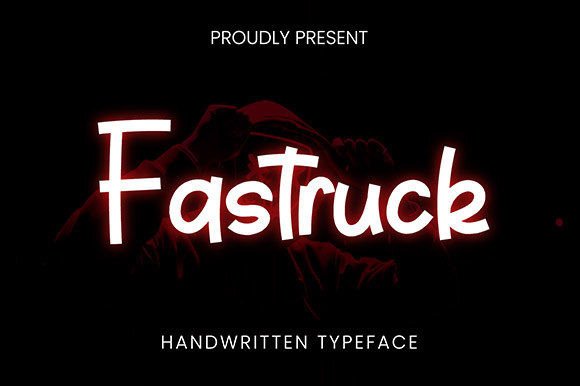
Introducing Fastruck Font - An Enigmatic Script for Captivating Expressions
In a world clamoring for authenticity, your words deserve a voice that echoes your soul's whispers. Discover Fastruck Font, the script font that transforms your digital expressions into captivating works of art. Each letter, meticulously hand-crafted by the visionary artisans at Chatype Studio, dances with a natural flair that's as unique as your own signature.
Experience the versatility of Fastruck Font as it effortlessly adapts to a myriad of creative endeavors. Whether you're crafting heartfelt quotes, designing logos that leave a lasting impression, or adding a touch of elegance to your blog headers, Fastruck Font rises to the occasion. Let your imagination run wild as you create posters that command attention, ribbons that exude grace, and fashion designs that speak volumes without uttering a word.
Unleash Your Inner Artist with Fastruck Font
With Fastruck Font as your creative companion, you'll unlock a world of possibilities. Create clothing lines that embody your personal style, letters that carry the weight of your emotions, and invitations that beckon with a touch of intrigue. Stationery imbued with Fastruck Font's charm becomes more than just a means of communication; it becomes an extension of your artistic flair.
Immerse yourself in the world of Fastruck Font, where your creativity knows no bounds. Let your imagination soar as you explore a font collection designed to ignite your passion and leave an indelible mark on the digital realm. Embrace the power of Fastruck Font - a script font that speaks to the heart and captivates the senses.
Additional Perks of Fastruck Font:
- Fully equipped with uppercase, lowercase, numbers, and a comprehensive range of punctuation marks, ensuring seamless integration with your design projects.